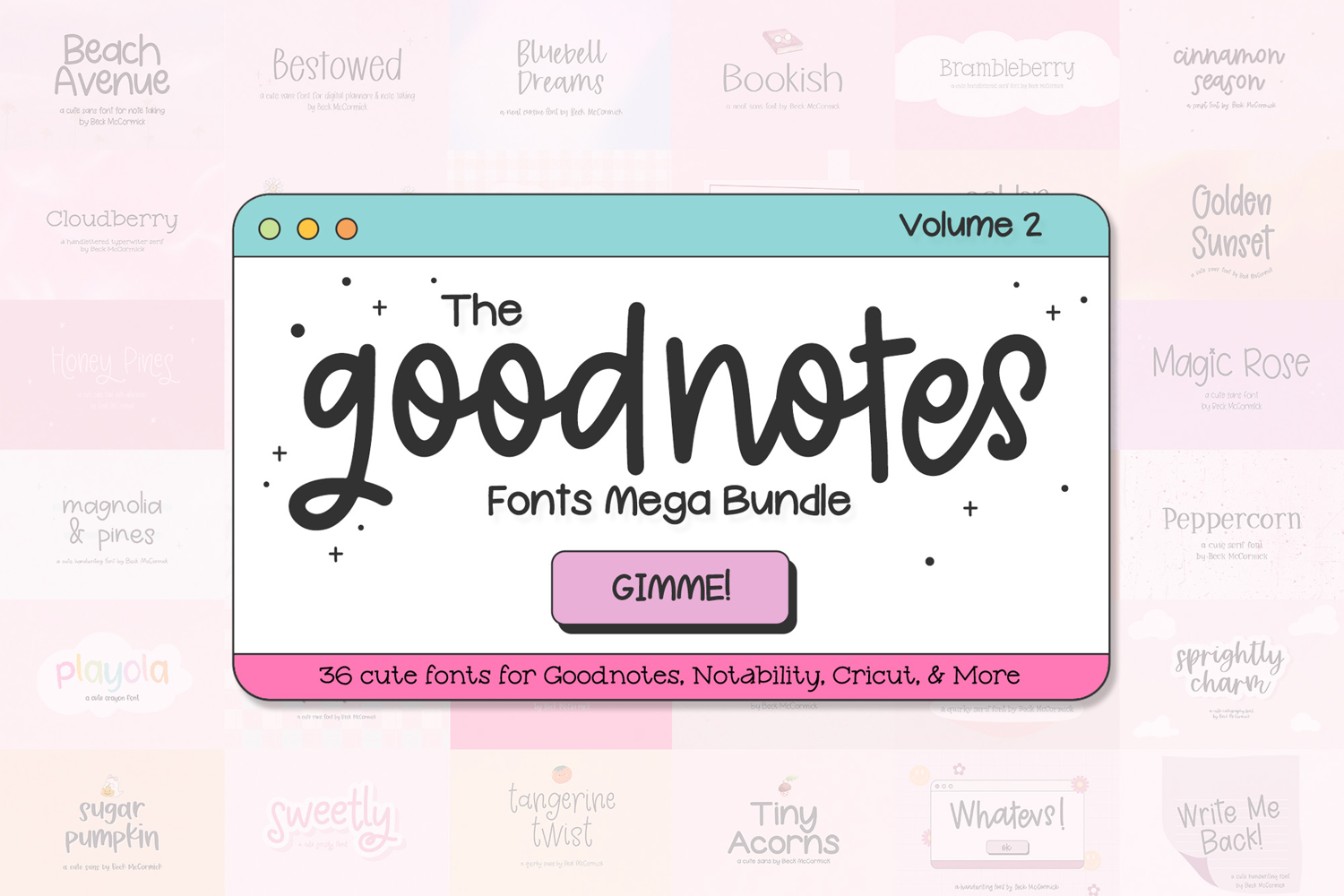
The Goodnotes Font Bundle Volume 2
Start your year organized & inspired with 36 Goodnotes fonts! Perfect for digital planning, Notability, Canva, Procreate, Cricut & more.
This bestselling collection includes 36 premium planner fonts designed to elevate your digital notes, planners, and creative projects. Whether you’re organizing your life in Goodnotes, creating lesson plans, or designing in Procreate, Canva, or Photoshop, these fonts are the perfect fit for every digital creator.
💕 What’s Included:
- 36 bestselling handwriting & cursive fonts
- Mix of neat, legible handwriting fonts and fun, playful cursive styles
- Perfect for digital planning, note-taking, journaling, classroom materials, and other design
You’ll receive the following fonts:
- Beach Avenue Sans
- Bestowed Sans
- Bluebell Dreams Script
- Bookish Sans
- Brambleberry Serif
- Cinnamon Season Script
- Cloudberry Typewriter Serif
- Daisylove Sans
- Dillydally Sans
- Gingerbread House Script
- Golden Honey Sans
- Golden Sunset Sans
- Honeylace Script
- Honey Pines Sans
- Honeysweet Script
- Jukebox Money Script
- Kindred Hearts Script
- Magic Rose Sans
- Magnolia & Pines Sans
- Meadowmint Sans
- Note Taker Sans
- Palosanto Sans
- Peach Crumble Sans
- Peppercorn Serif
- Playola Sans
- Preppy Babe Sans
- Royalties Sans
- Rustic Ridge Sans
- September Market Serif
- Sprightly Charm Script
- Sugar Pumpkin Sans
- Sweetly Script
- Tangerine Twist Sans
- Tiny Acorns Sans
- Whatevs Sans
- Write Me Back Sans